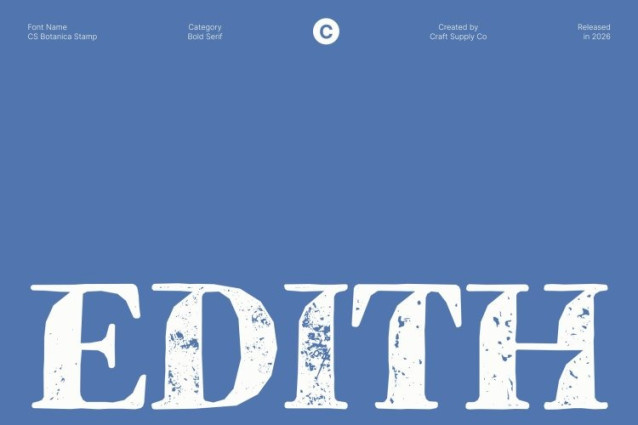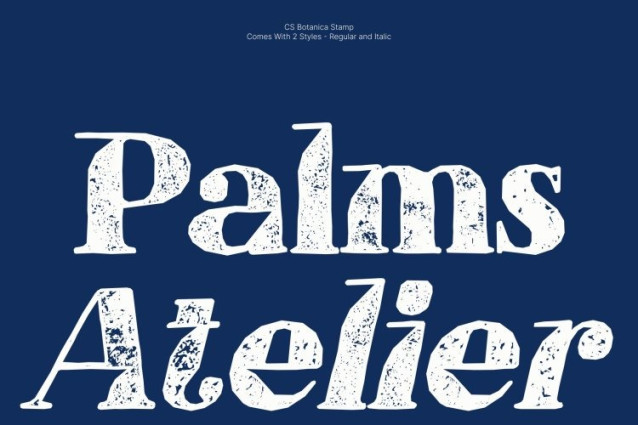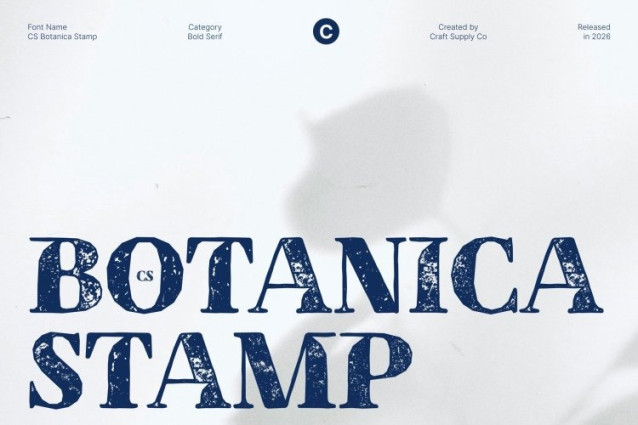
CS Botanica Stamp Font
CS Botanica Stamp Font – This elevates its refined Didone serif forms with a subtle stamped texture, adding a tactile, artisanal quality to its high-contrast strokes. The clean, luxurious lines now carry gentle imperfections and distressed edges that evoke the charm of classic print techniques, merging modern sophistication with handcrafted appeal.
Sophisticated Opulence with Organic Detail
The font’s sharp verticals and delicate thin strokes gain depth and personality through the stamped effect. Each letter maintains its sleek Didone structure while embracing organic irregularities, giving designs a warm, tactile quality that feels both luxurious and approachable.
Perfect for Luxury Branding and Elegant Print
Ideal for upscale packaging, high-end editorial layouts, wedding stationery, or premium branding, ensures your typography conveys timeless elegance with a contemporary flair. The combination of classic high-contrast serif and artisanal texture creates a distinguished, visually captivating presence.
Versatile for Refined and Artistic Applications
Whether for print or digital media, this font adds sophistication and subtle character to every composition. Its stamped detailing transforms text into a statement of elegance, making it perfect for designers seeking a blend of modern luxury and handcrafted charm.